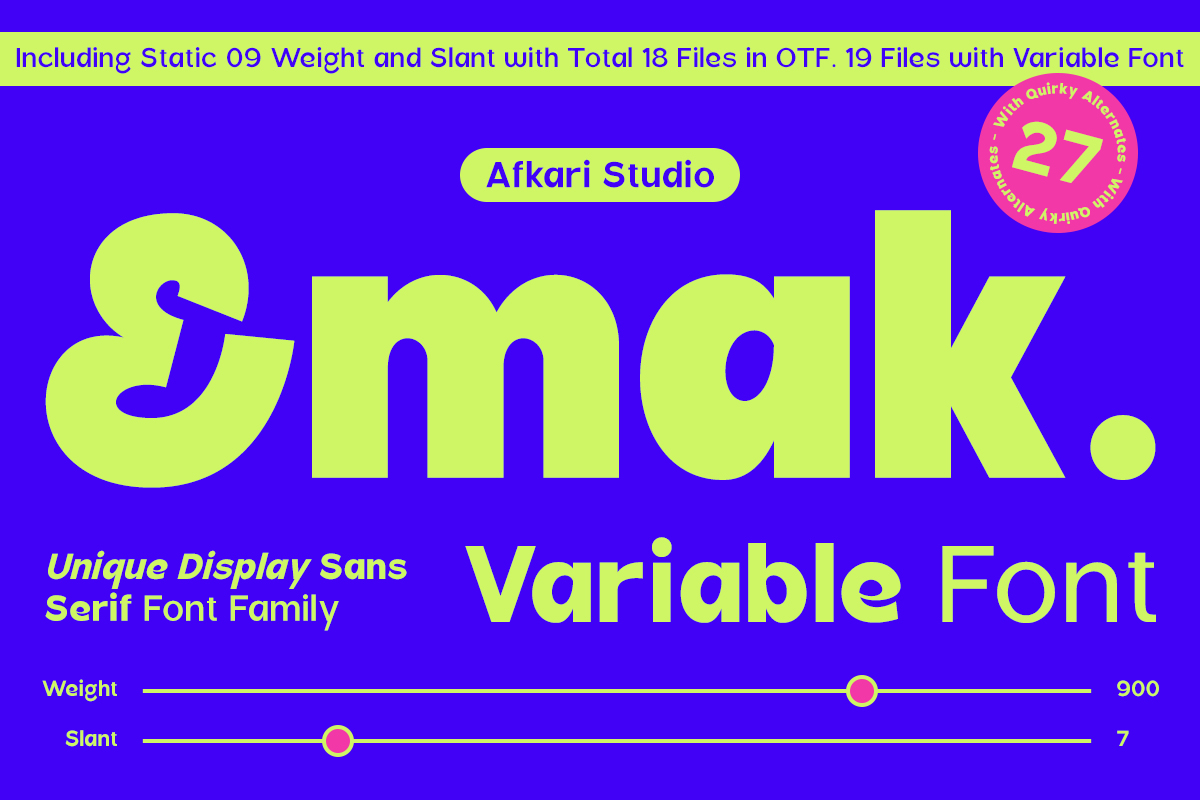
Emak - Modern Sans Serif Typeface With Variable Font Font
About Emak - Modern Sans Serif Typeface With Variable Font
Emak is a bold and versatile sans-serif font family designed for modern and dynamic typography. With 18 weights ranging from Thin to Black, along with Slant styles and a Variable Font option, Emak provides ultimate flexibility for designers. Whether you're crafting striking headlines, sleek branding, or engaging digital content, this typeface delivers both power and precision.
Emak - Modern Sans Serif Typeface with Variable Font